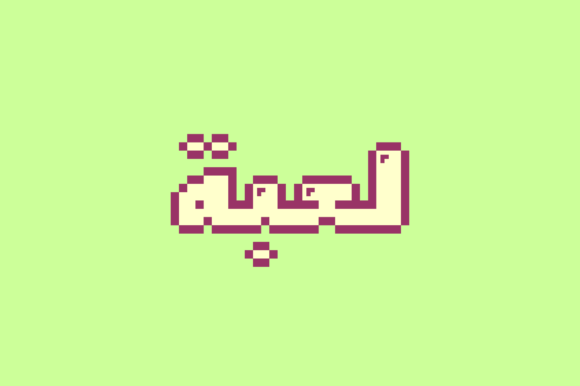
Unleash your creativity with Loabah, the striking display font that evokes the nostalgia of 8-bit graphics from the iconic 1980s. Inspired by the captivating visual language of retro games, Loabah is a single-weight Arabic display font that brings a touch of playful charm to your designs.
With its bold and distinctive character, Loabah will add an eye-catching element to your web design projects, making your website or online presence stand out from the crowd. Its unique style effortlessly complements creative advertising campaigns, capturing the attention of your audience and leaving a lasting impression. Additionally, Loabah's remarkable presence makes it an ideal choice for creating captivating titles that demand attention.
Immerse yourself in the captivating aura of Loabah and let your imagination soar. Its versatility extends beyond the digital realm, as it beautifully complements printed materials, transforming ordinary designs into extraordinary creations. Unleash the power of Loabah today and embark on a typographic journey that will leave your audience spellbound.